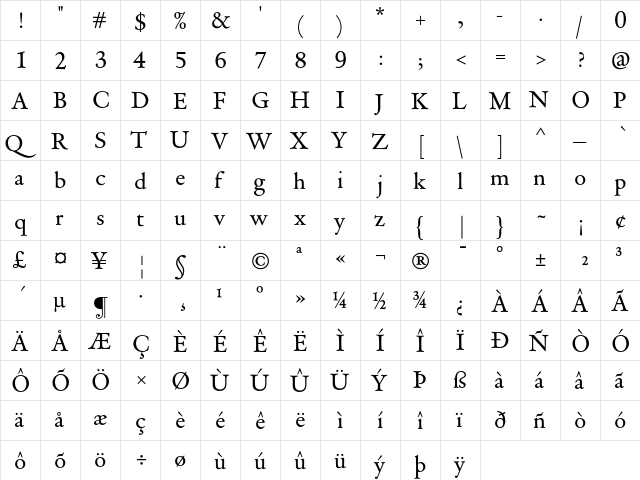
DTLVandenKeereT Regular
Design Context for DTLVandenKeereT Typeface
DTLVandenKeereT offers clean, dependable letterforms without strong stylistic allegiance, making it a practical choice for designers who need flexibility.